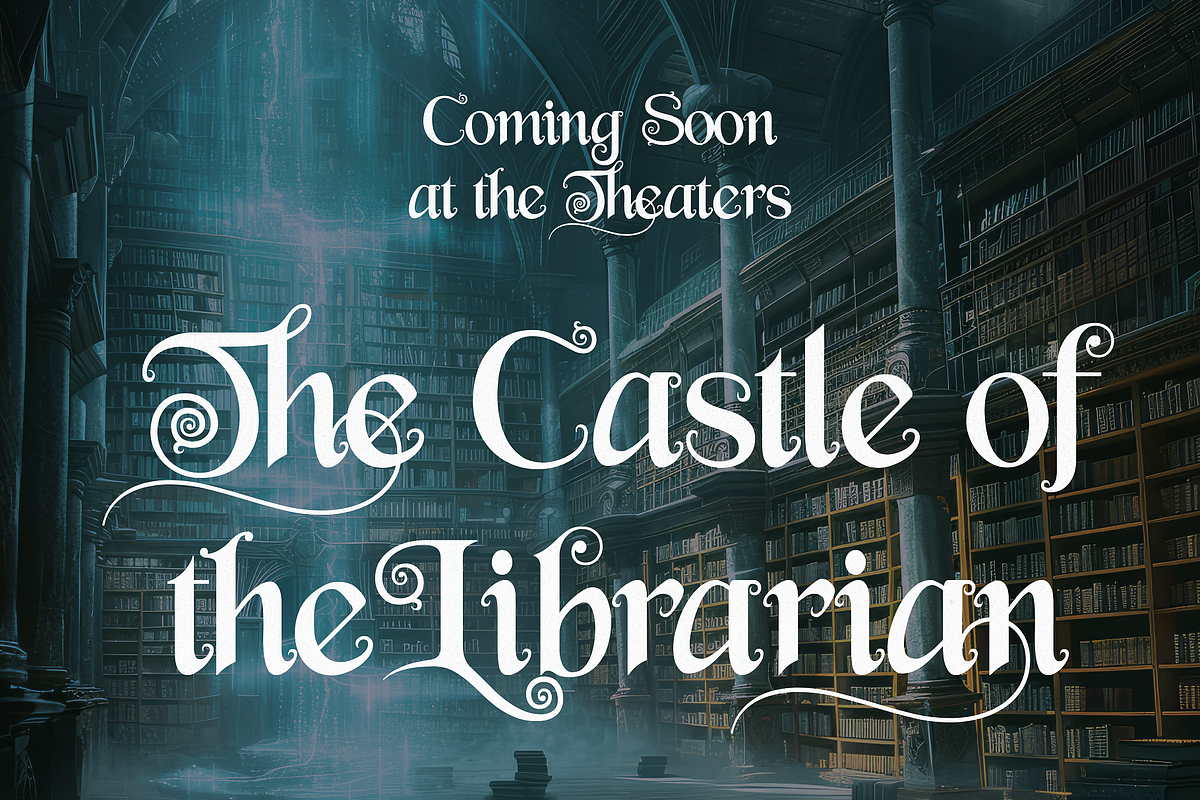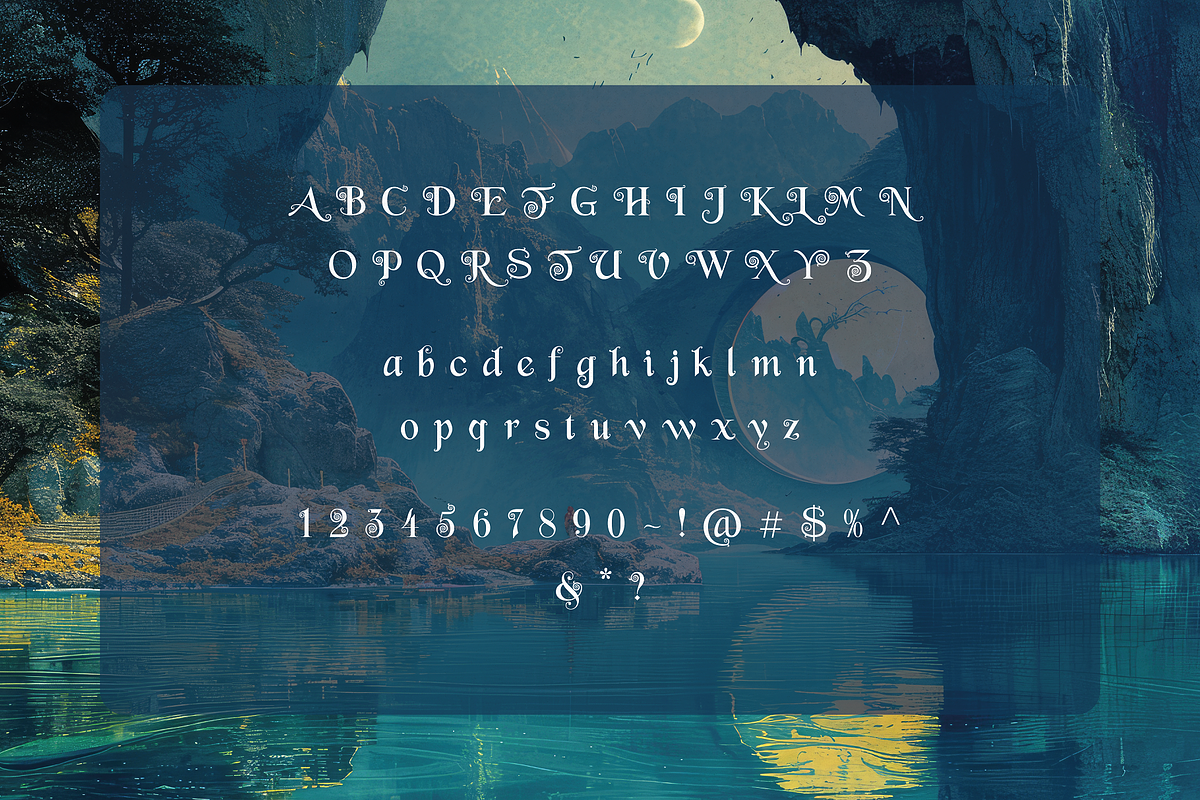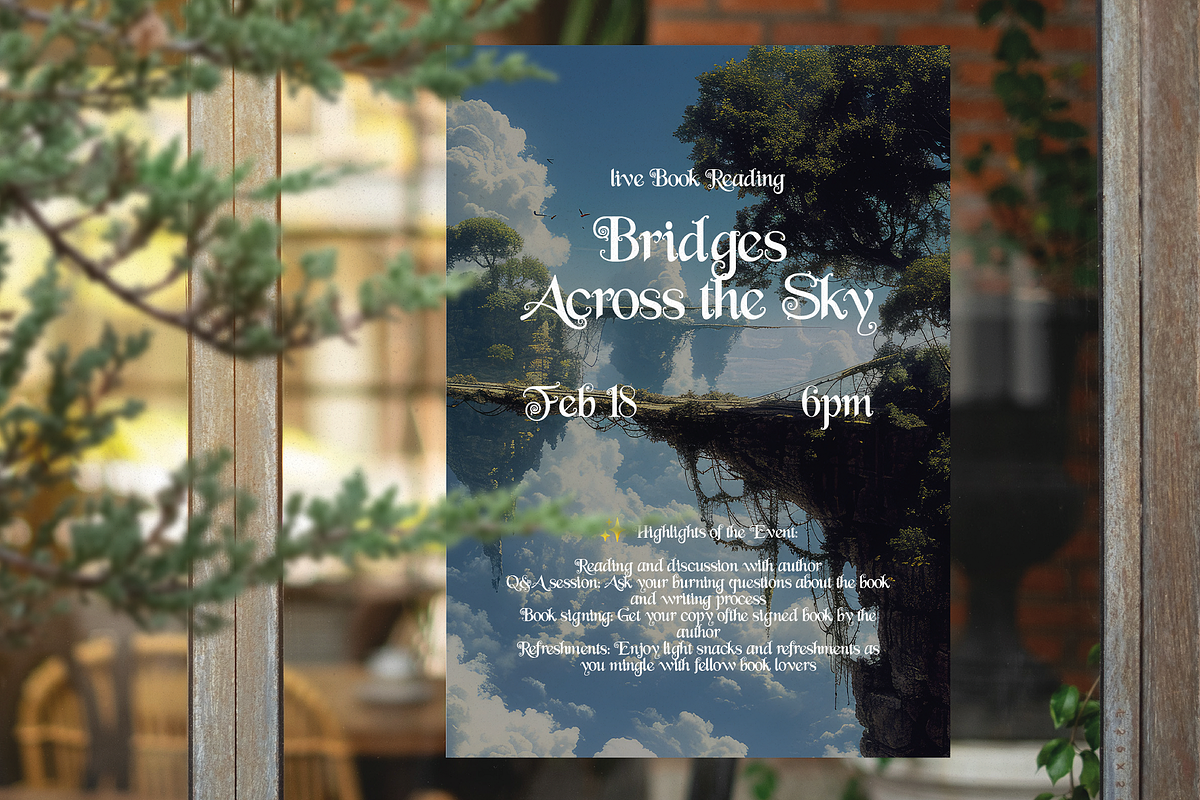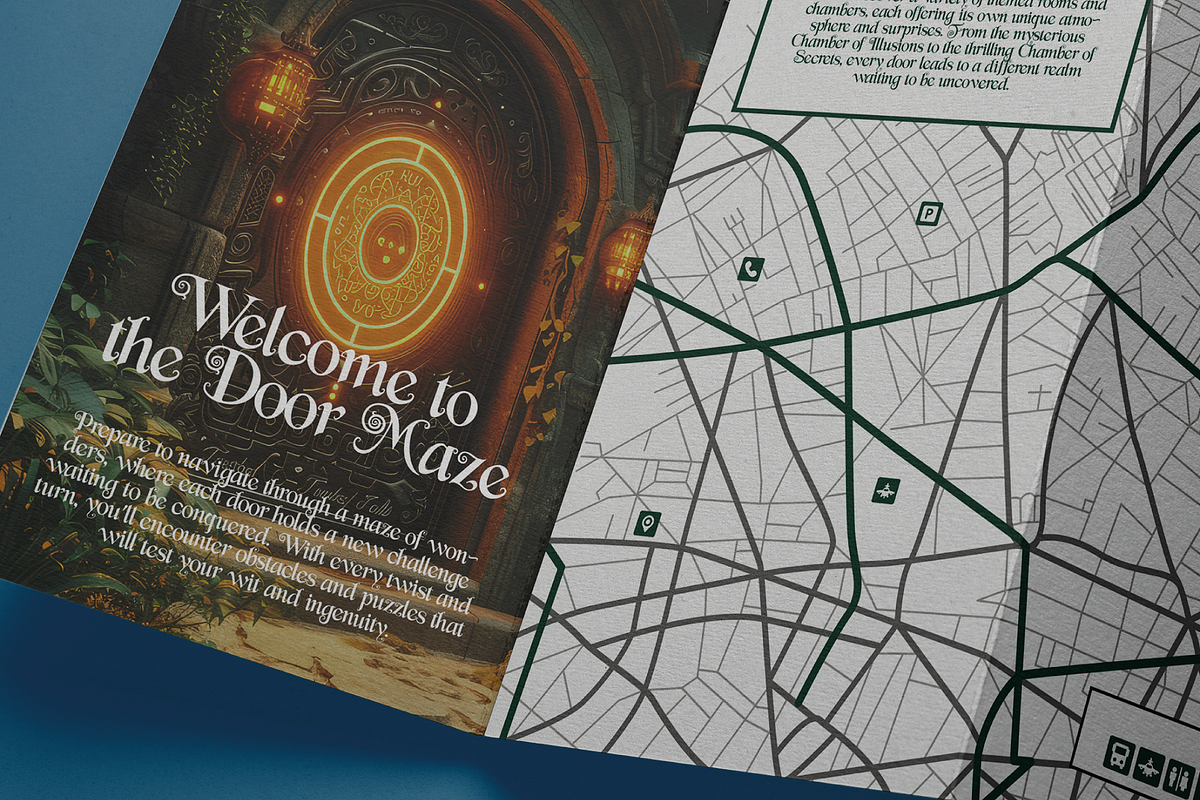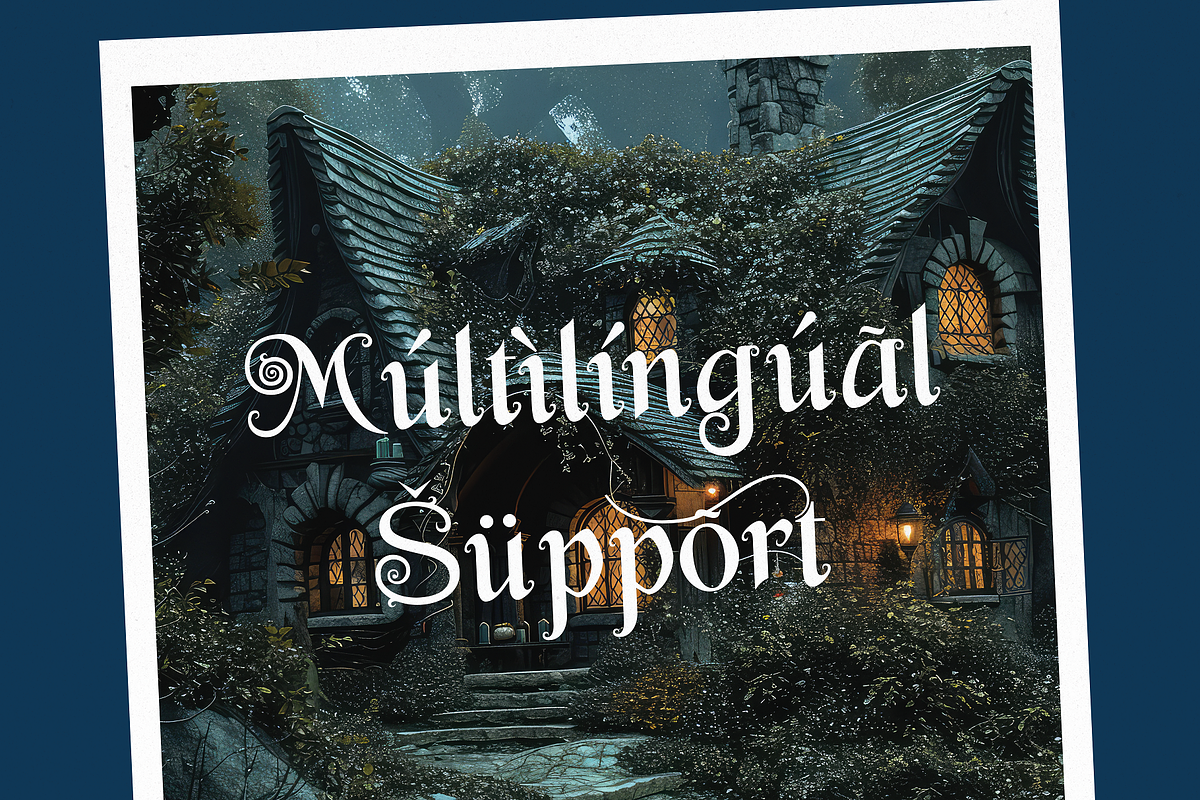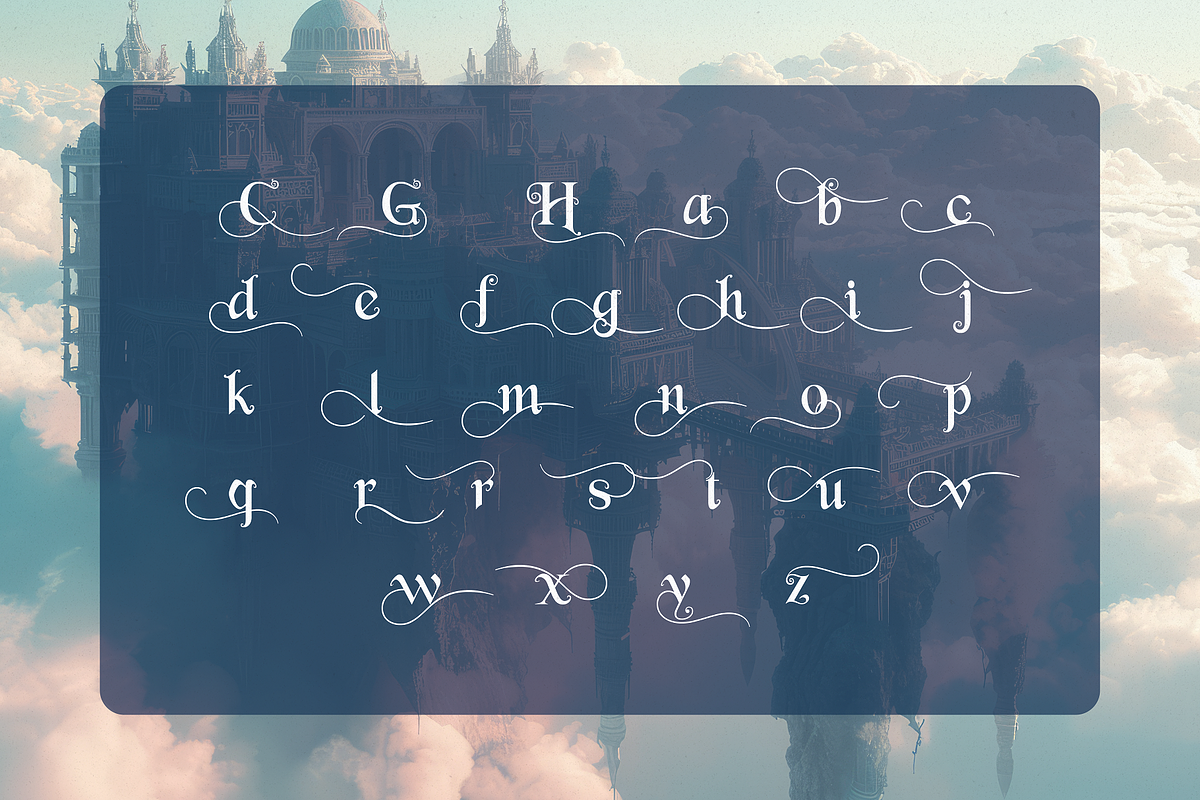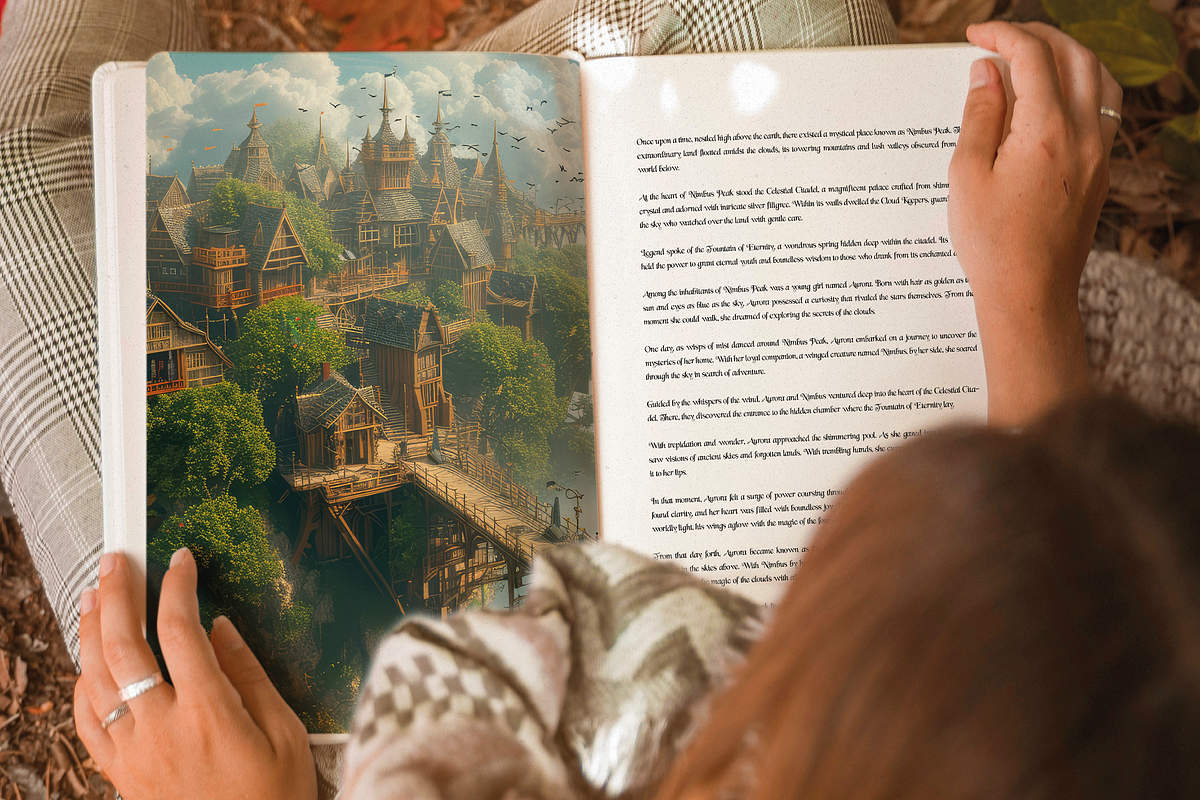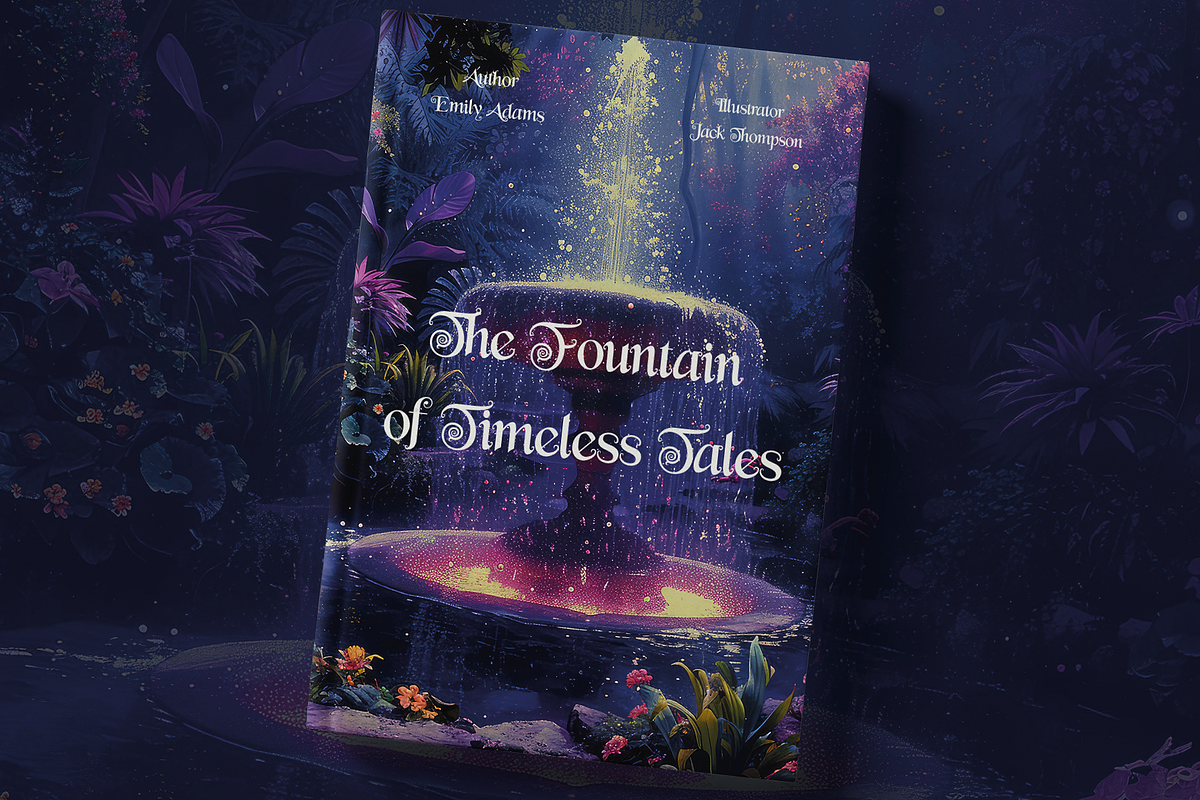
Twisted Fable - Fantasy Typeface
Twisted Fable is a mesmerizing typeface that seems to have been conjured straight out of a mystical realm. Designed specifically for fantasy projects, this font weaves together the enchantment of ancient lore with the whimsy of magical tales, making it a perfect choice for authors, game designers, and creatives looking to add a touch of magic to their work.
With its intricate letterforms and decorative elements, Twisted Fable evokes the mysterious allure of forgotten languages and arcane symbols. Each character is crafted with a blend of elegance and eccentricity, featuring unexpected twists and turns that hint at stories untold. This typeface is not just a tool for communication; it's an invitation to embark on a journey into the imaginative and the unknown.
Twisted Fable is incredibly versatile, ideal for everything from book covers and movie titles to game interfaces and promotional materials for fantasy events. Its unique character designs make it stand out, ensuring that any project it graces will capture the attention and curiosity of its audience. The font includes a variety of weights and styles, along with an assortment of glyphs and ligatures, allowing for full creative expression.
Beyond its visual appeal, Twisted Fable is designed with readability in mind, ensuring that its fantastical elements enhance rather than hinder the legibility of the text. This makes it suitable for both large displays and body text, allowing designers to create cohesive and immersive fantasy experiences across different media.
Dive into the world of Twisted Fable and let your creative endeavors be infused with its magical essence. Whether you're crafting a tale of epic adventures, designing the next hit fantasy game, or creating promotional materials for a mystical event, Twisted Fable will add that special spark of enchantment that makes your project truly unforgettable.